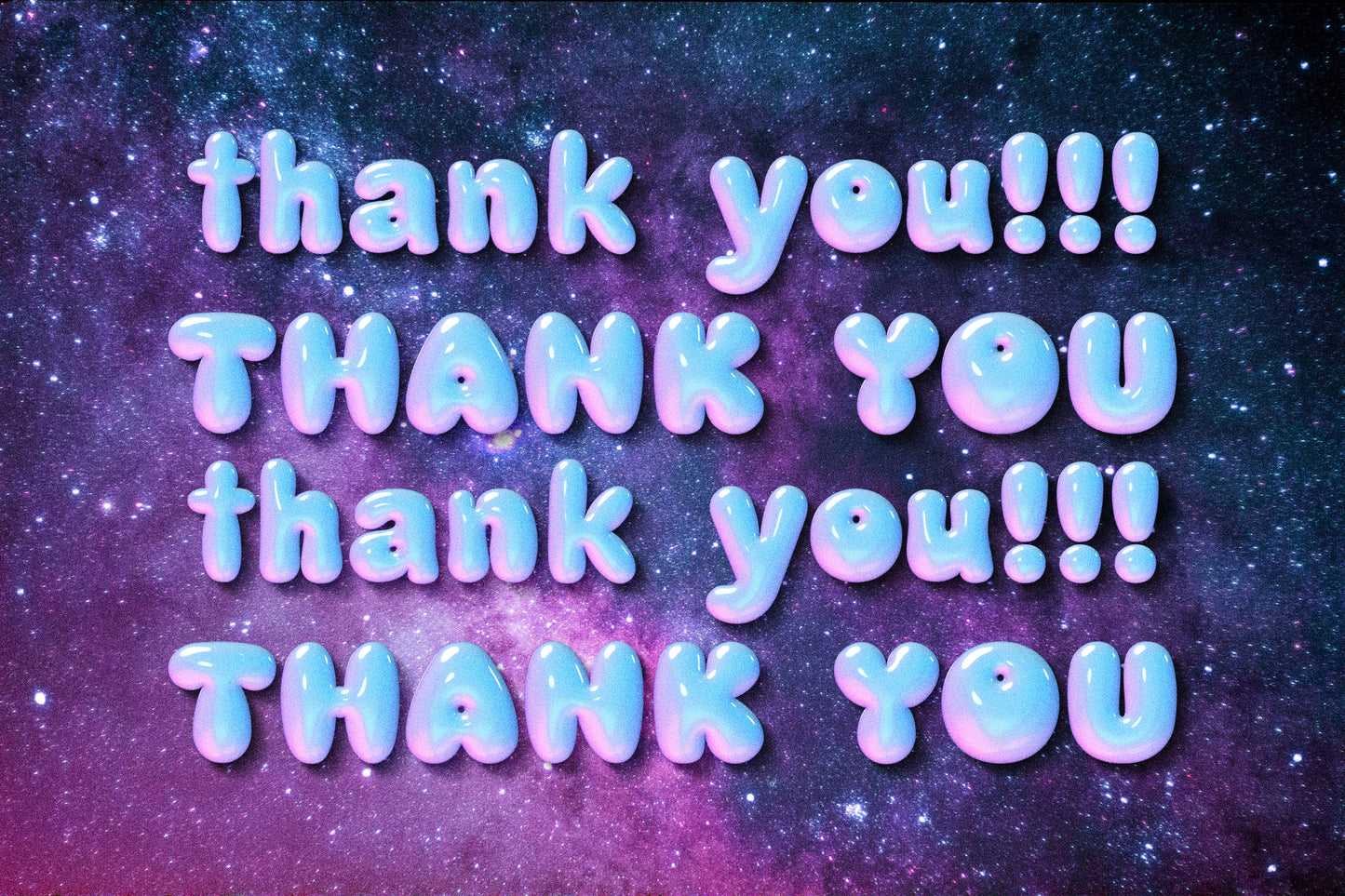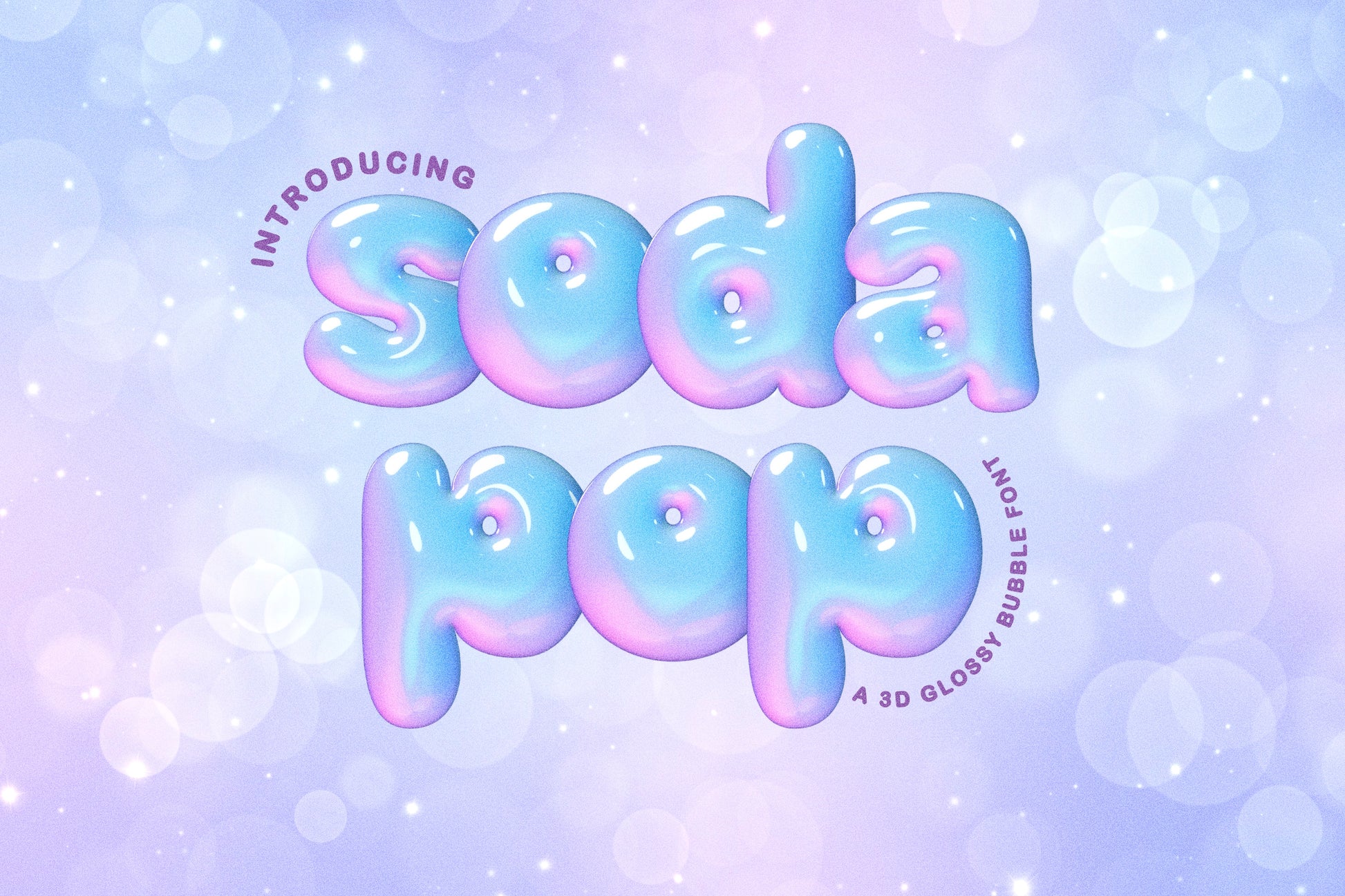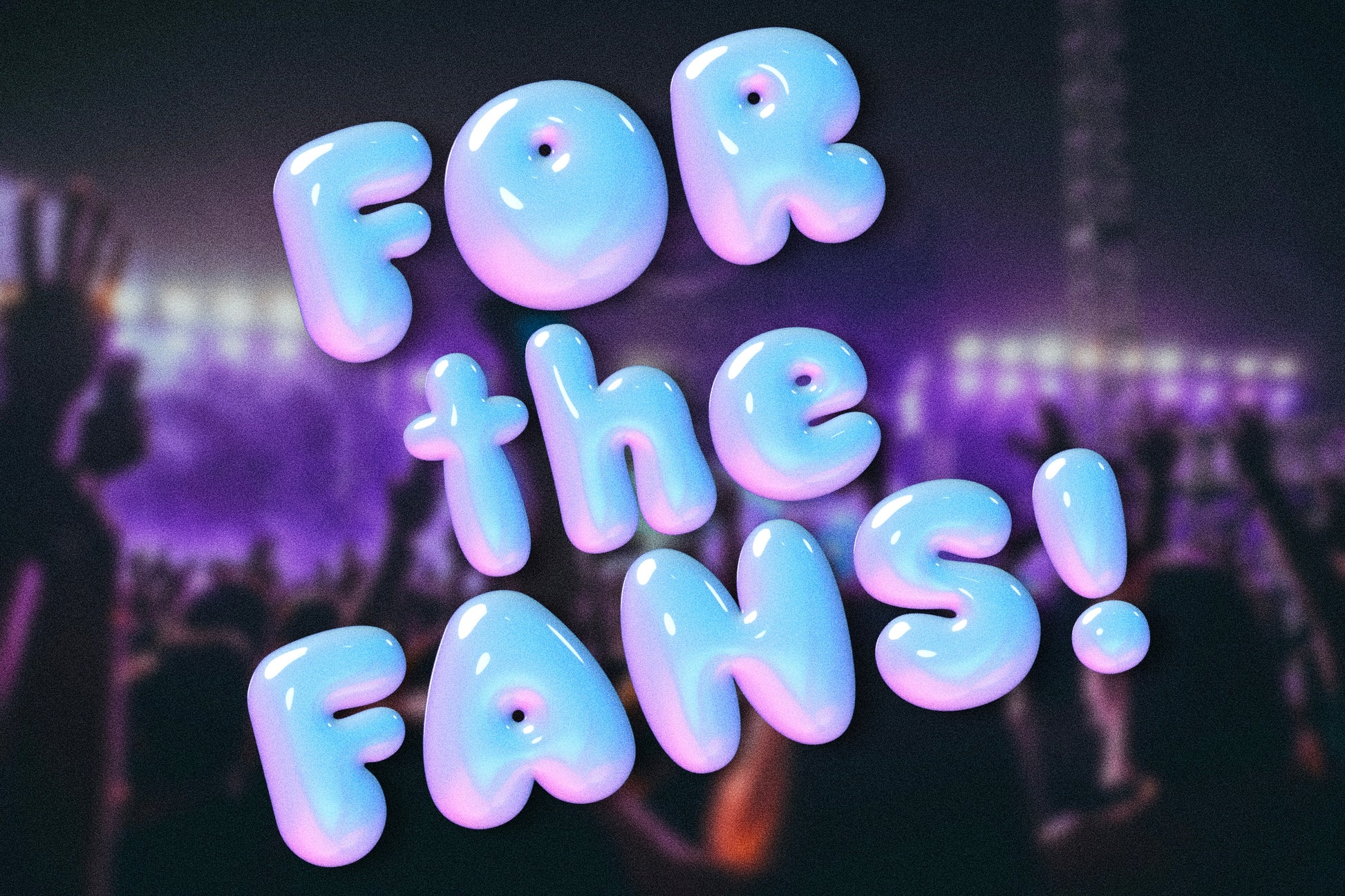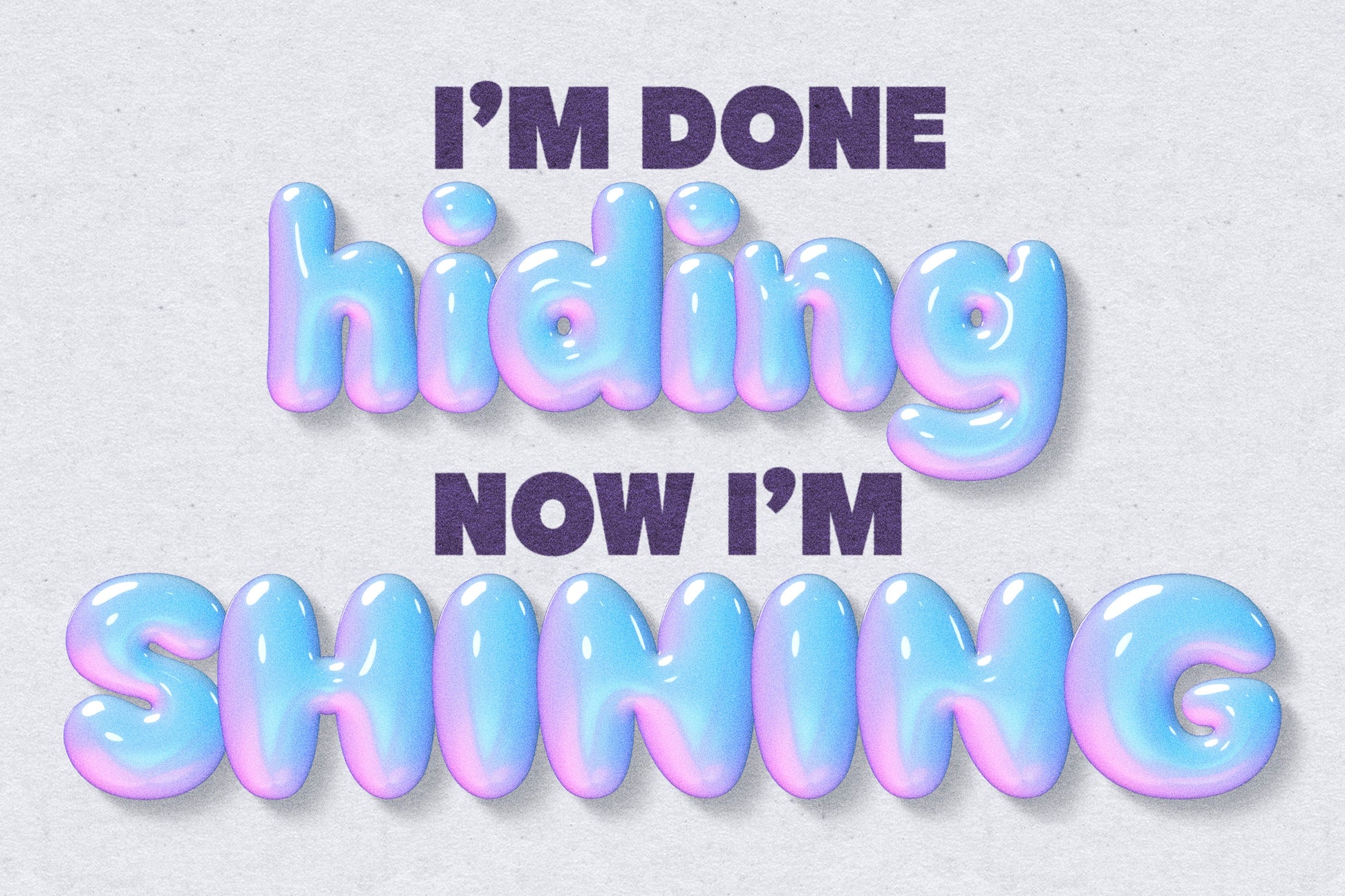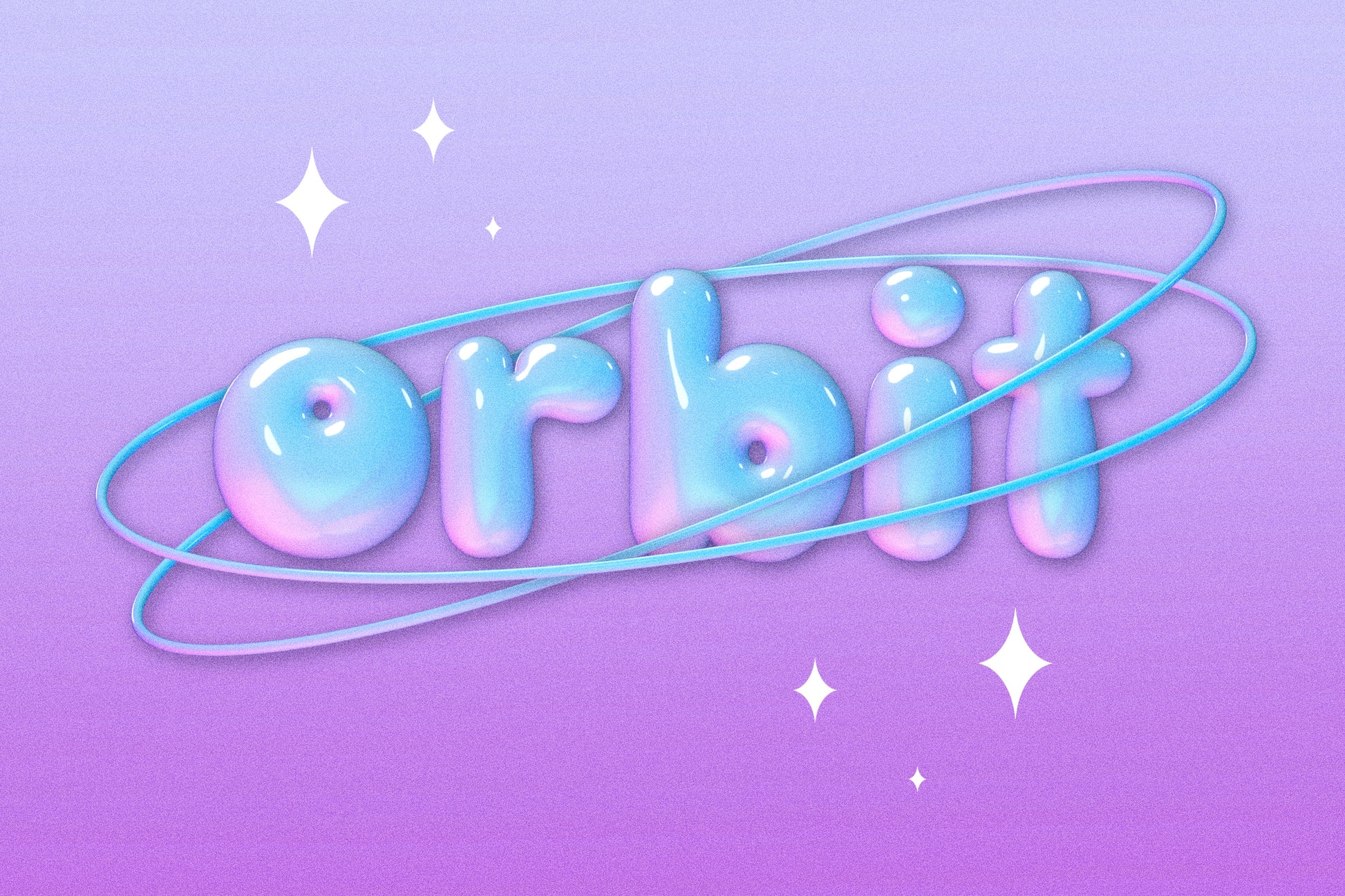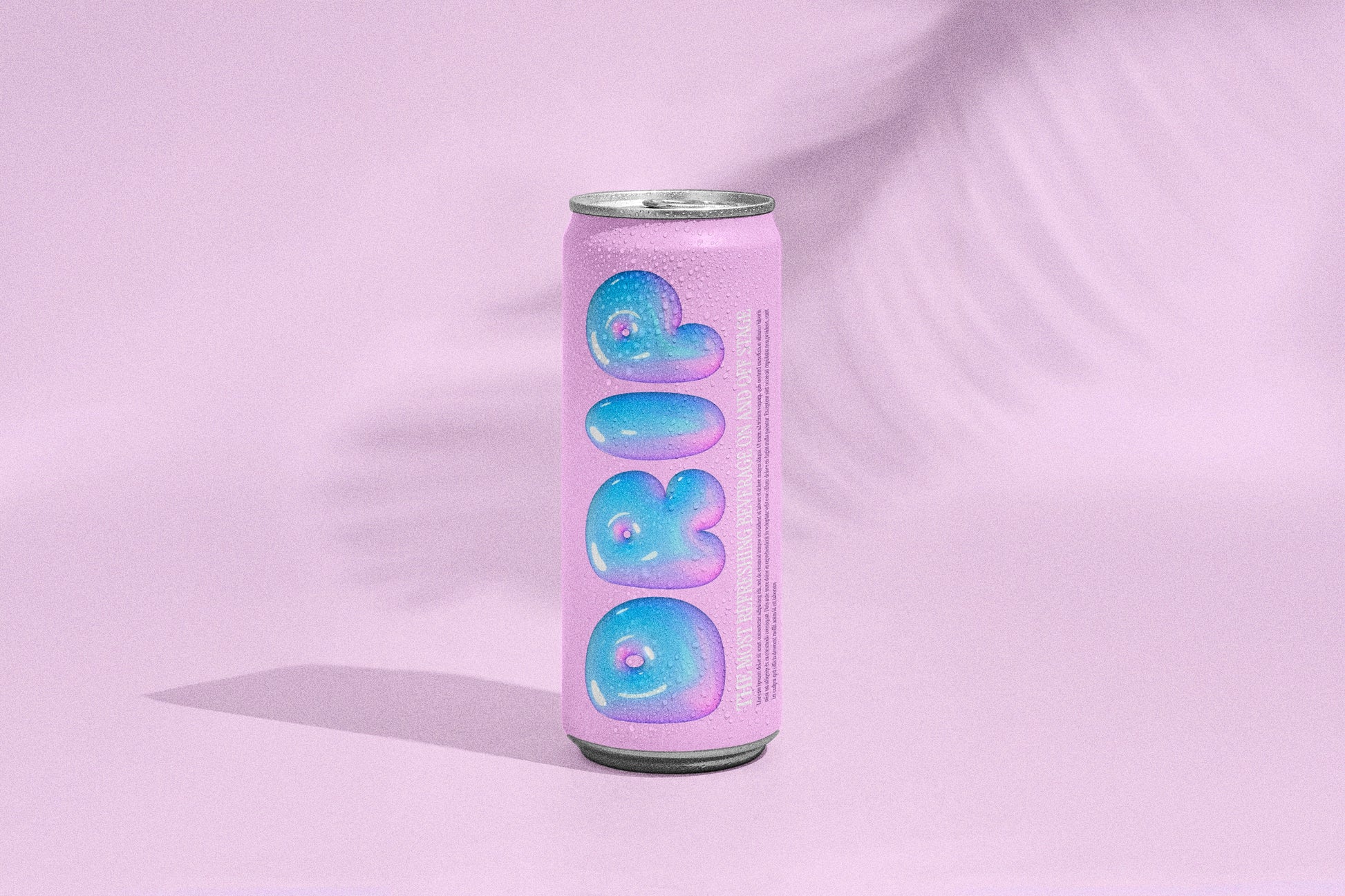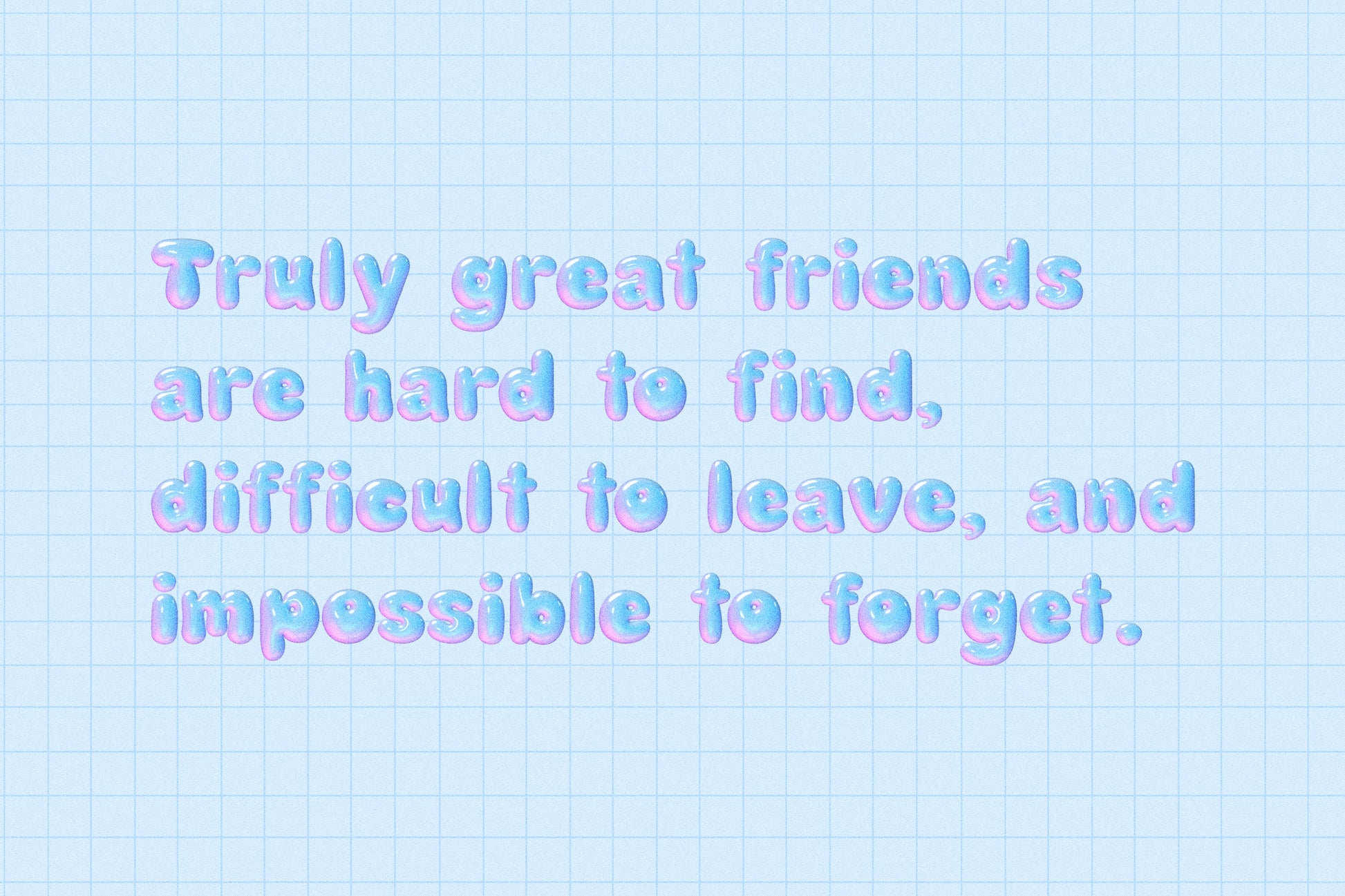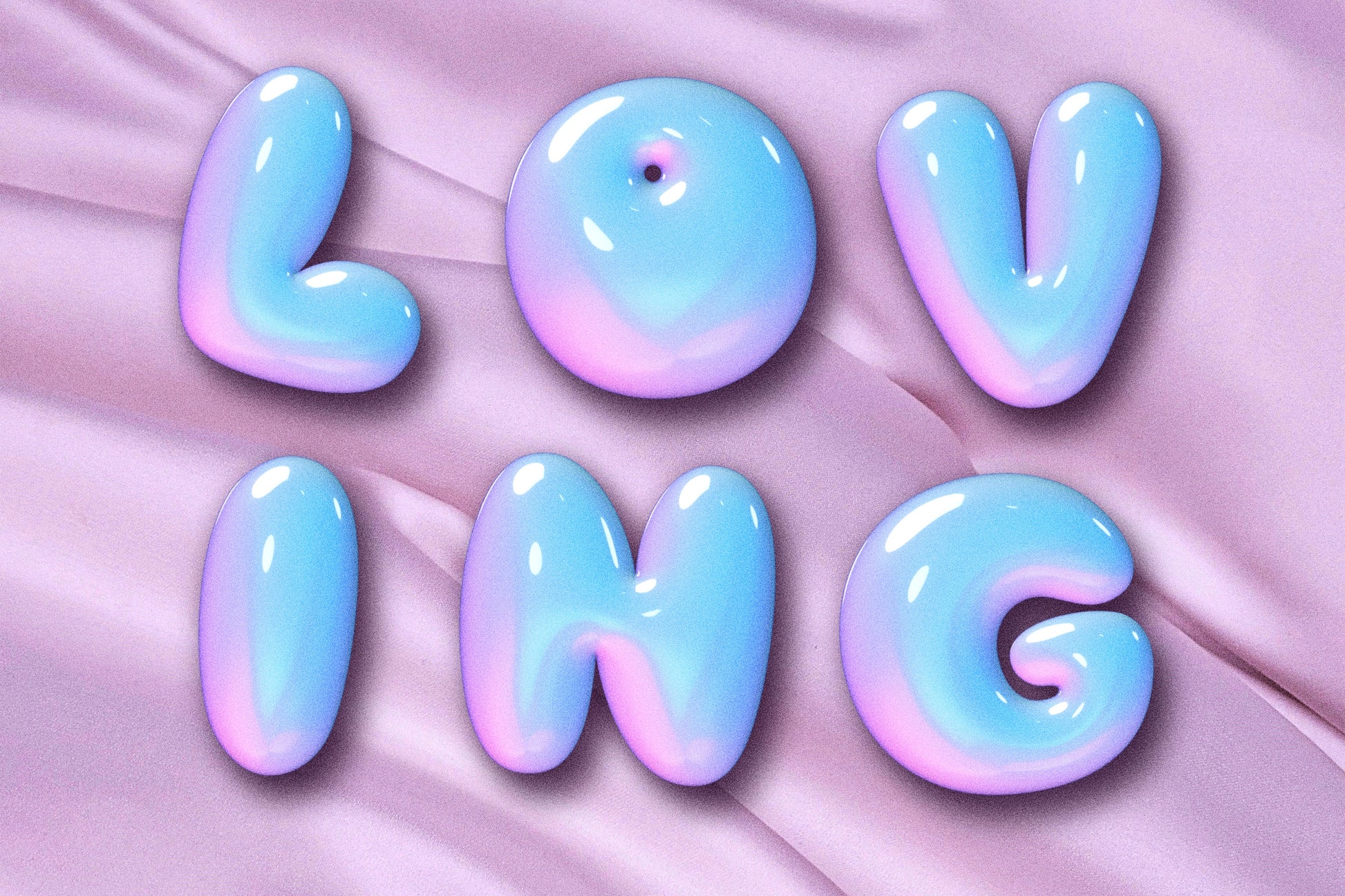
Soda Pop 3D SVG Color Font
Introducing the Soda Pop color font! This unique, 3D hand drawn font is a puffy font with a highly glossy shine to it. It would be absolutely perfect for casual, playful designs on stickers, invitations, flyers, t-shirts, posters, children’s branding, magazines, and much more!